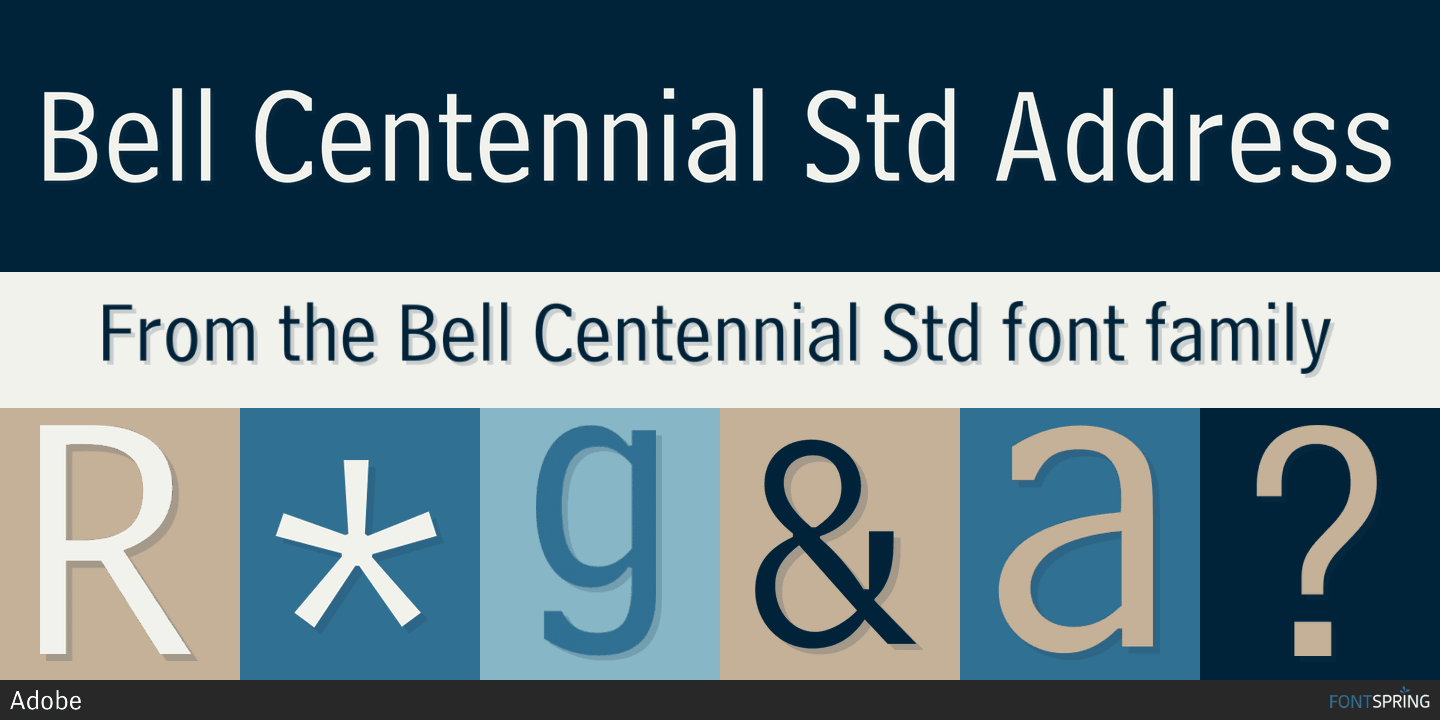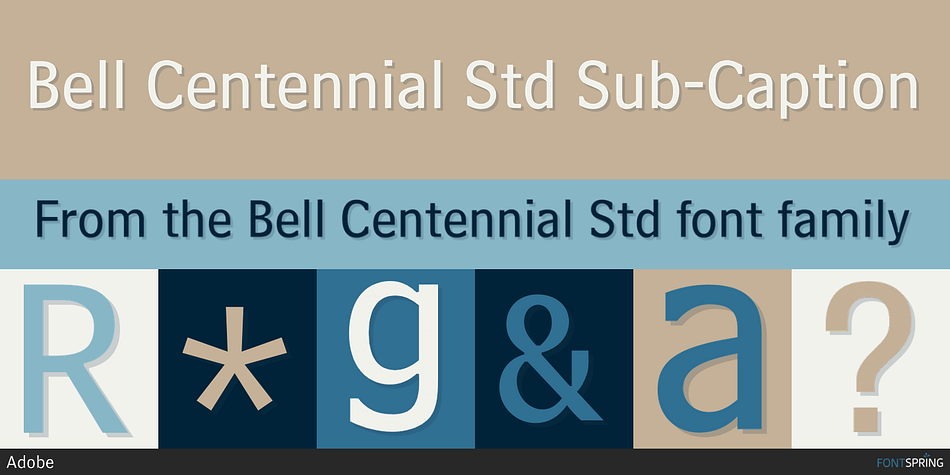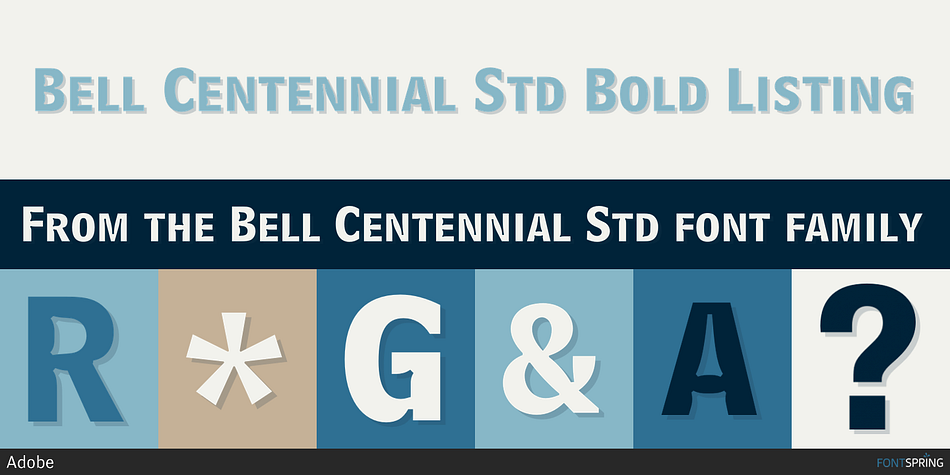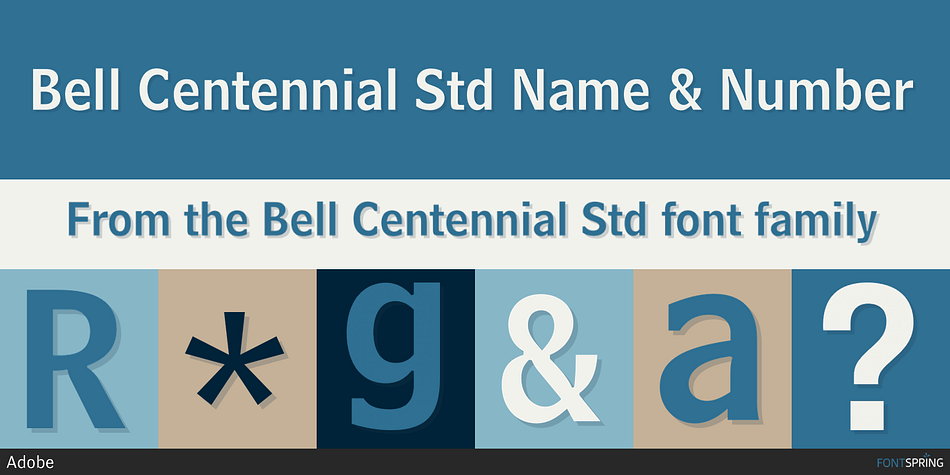
Bell Centennial Std is a sans serif and display sans font family. This typeface has four styles and was published by Adobe.
Matthew Carter designed Bell Centennial in 1978 specifically for AT&T Corporation (the name honors their 100th anniversary) to use in telephone books. Carter developed it to have high legibility at small sizes, and for composition on high-speed, cathode-ray-tube composing machines. (Bell Gothic, the typeface originally designed for telephone books in 1937 and for composition on the hot metal Linotype machines, was no longer usable in the new technology.) Bell Centennial is a sturdy, condensed sans-serif design that achieves great economy of space while being highly legible. Bell Centennial can be used for modern display purposes and, of course, for small print and lists. The Alternate version of Bell Centennial Bold Listing sits on a standard baseline; the original version sits far below the baseline, and cannot mix properly with other fonts on the same line.
Foundry | Adobe |